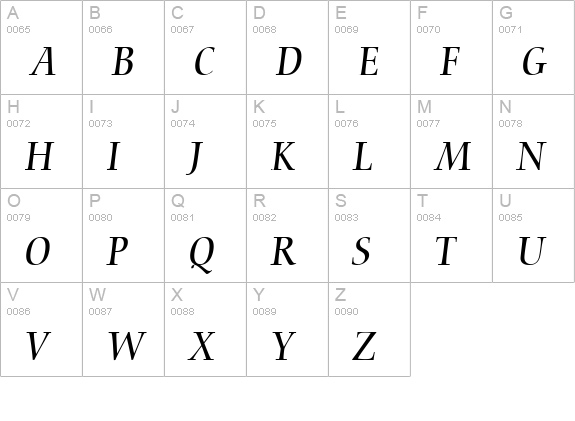
Nofret Italic Font Details
Nofret Italic is a distinctive, italic variant in the Nofret typeface family \xE2\x80\x94 well suited to design and typography projects.
Nofret Italic font exudes elegance and sophistication with its sleek and modern design. The graceful curves and exquisite details of each letter make this font a perfect choice for adding a touch of luxury to your projects. The italic style of Nofret adds a sense of movement and fluidity, giving your text a dynamic and stylish look. Best of all, Nofret Italic font is available for free download at FontsMarket.com. Whether you're working on a branding project, a wedding invitation, or a social media graphic, Nofret Italic font will elevate your design and make a lasting impression. Don't miss out on the opportunity to enhance your creations with this stunning font that is both timeless and contemporary. Download Nofret Italic font today and unleash your creativity with this exquisite typeface.